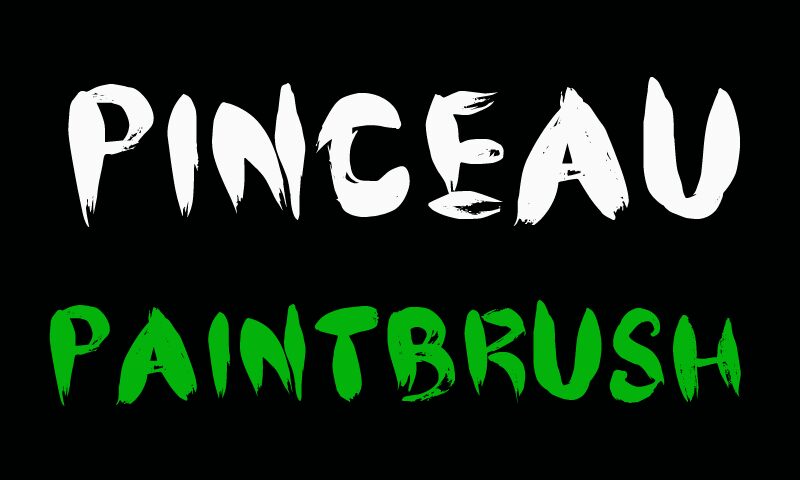
CF Pinceau by Cloutier Fontes is a free brush script with broad, forceful strokes and a rough, dry-brush finish. The letters shift in width and angle, with sharp tapered ends, scraped patches, and uneven contours that make the texture feel genuinely hand-painted.
Its raw punk and street-art character is especially suited to concert posters and album artwork, where the lettering can match loud photography and distressed print effects. It also fits action-sports branding and apparel graphics, lending names and slogans the urgency of a quickly painted sign. In editorial illustrations, the torn edges and ink gaps can echo splatters, photocopied textures, or aggressive black-and-white artwork.
CF Pinceau Regular is a font by CloutierFontes, designed by Steve Cloutier in 2012.